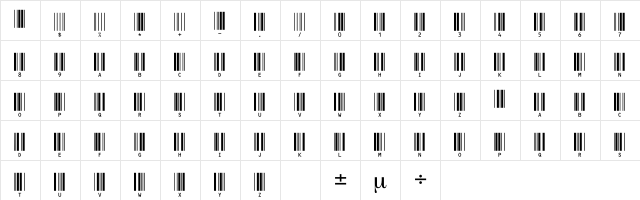
C39HrP36DlTt Normal Font Preview
C39HrP36DlTt Normal
Design Context for C39HrP36DlTt Typeface
C39HrP36DlTt is a composed and adaptable typeface that performs quietly and consistently across a wide range of design contexts.